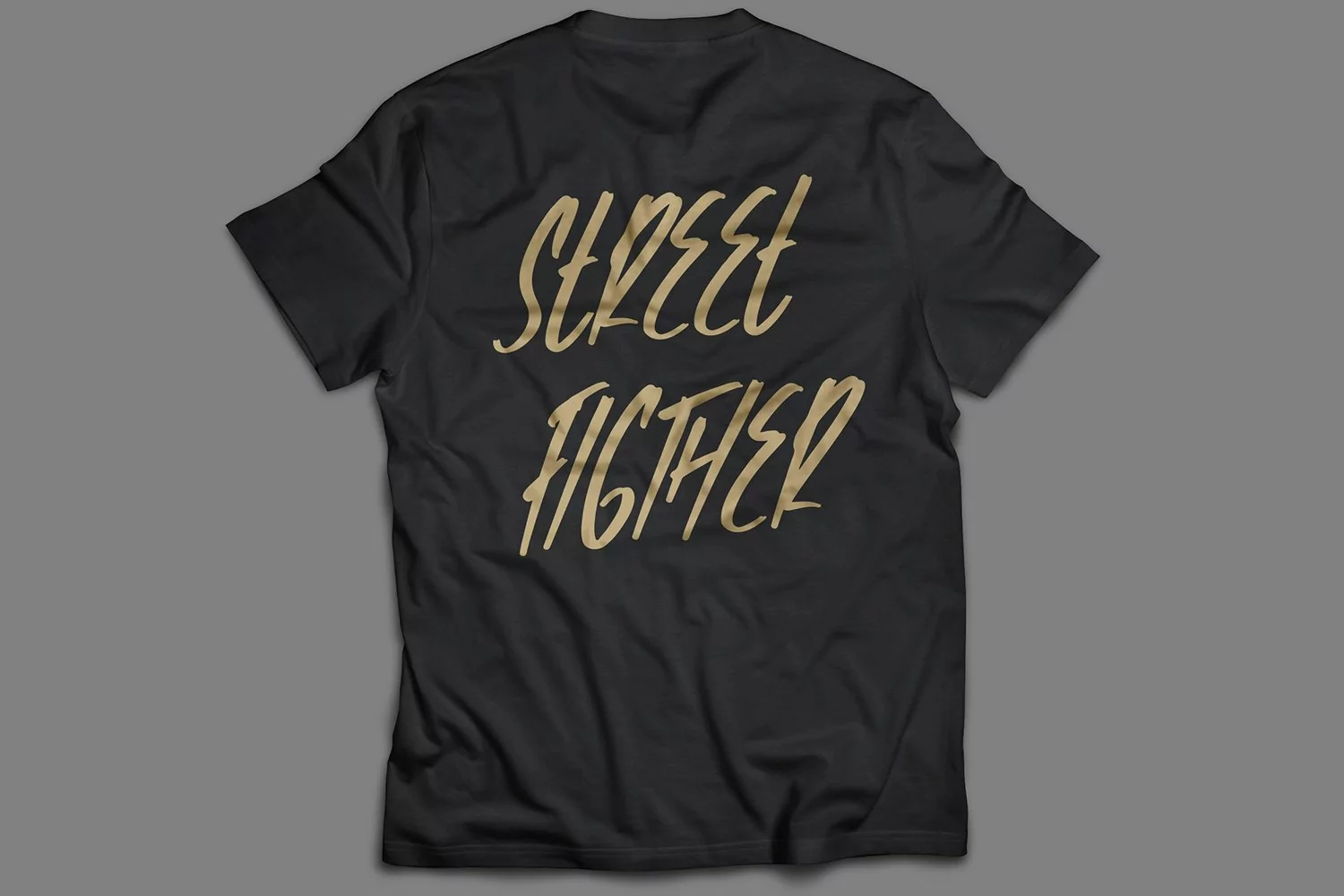
Confusion - Cool Handbrushed Font that contain lowercase, uppercase, symbol, and also support multi language. There’s a lot ligatures in this font. This Font also comes with ligatures, alternates and many more. this font suitable for fashion, branding, catalog and other design what you want.
Confusion